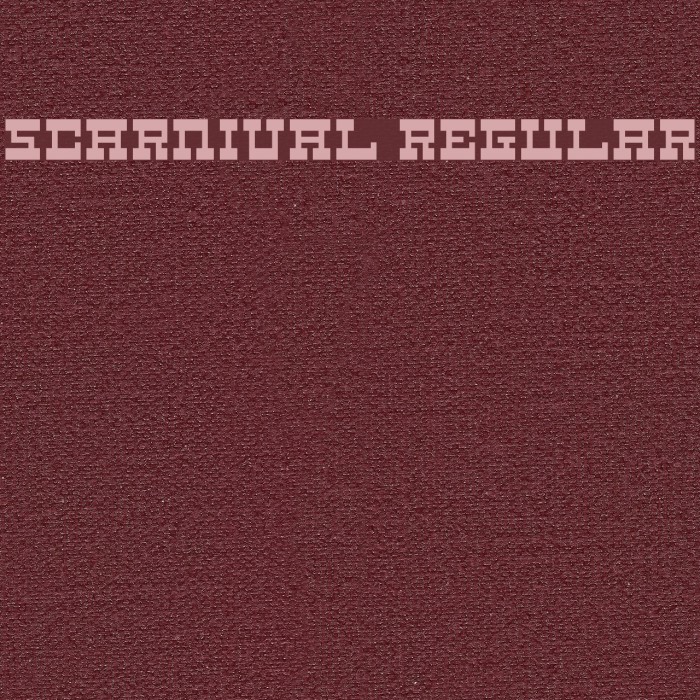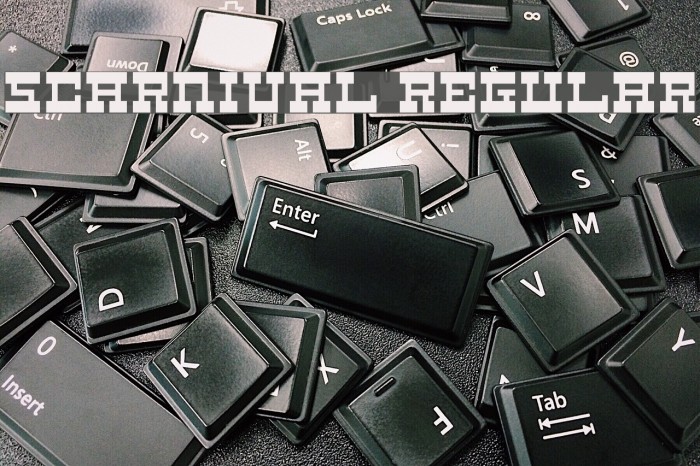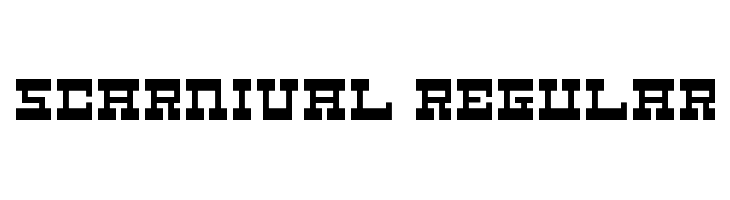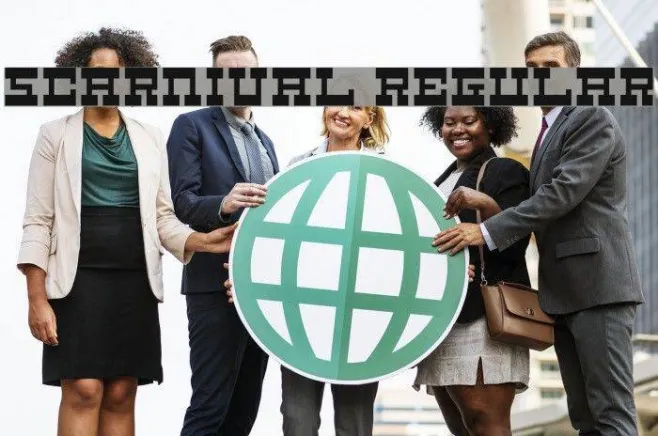
5Carnival Regular Font
This font features a bold, geometric design with a blocky, pixelated appearance. The characters are constructed with sharp, angular edges and uniform stroke widths, giving it a digital or retro video game aesthetic. The uppercase and lowercase letters maintain a consistent height, contributing to a monospaced feel, although it is not strictly monospaced. The numerals and special characters follow the same design principles, ensuring a cohesive look across all glyphs. This style is reminiscent of early computer graphics and arcade games, making it ideal for projects that aim to evoke nostalgia or a tech-inspired theme.
A bold, geometric font with a pixelated, retro digital aesthetic.
- Proposed Projects: Ideal for video game design, tech-themed posters, retro branding, and digital art projects.
- Overall Style: Retro, Digital